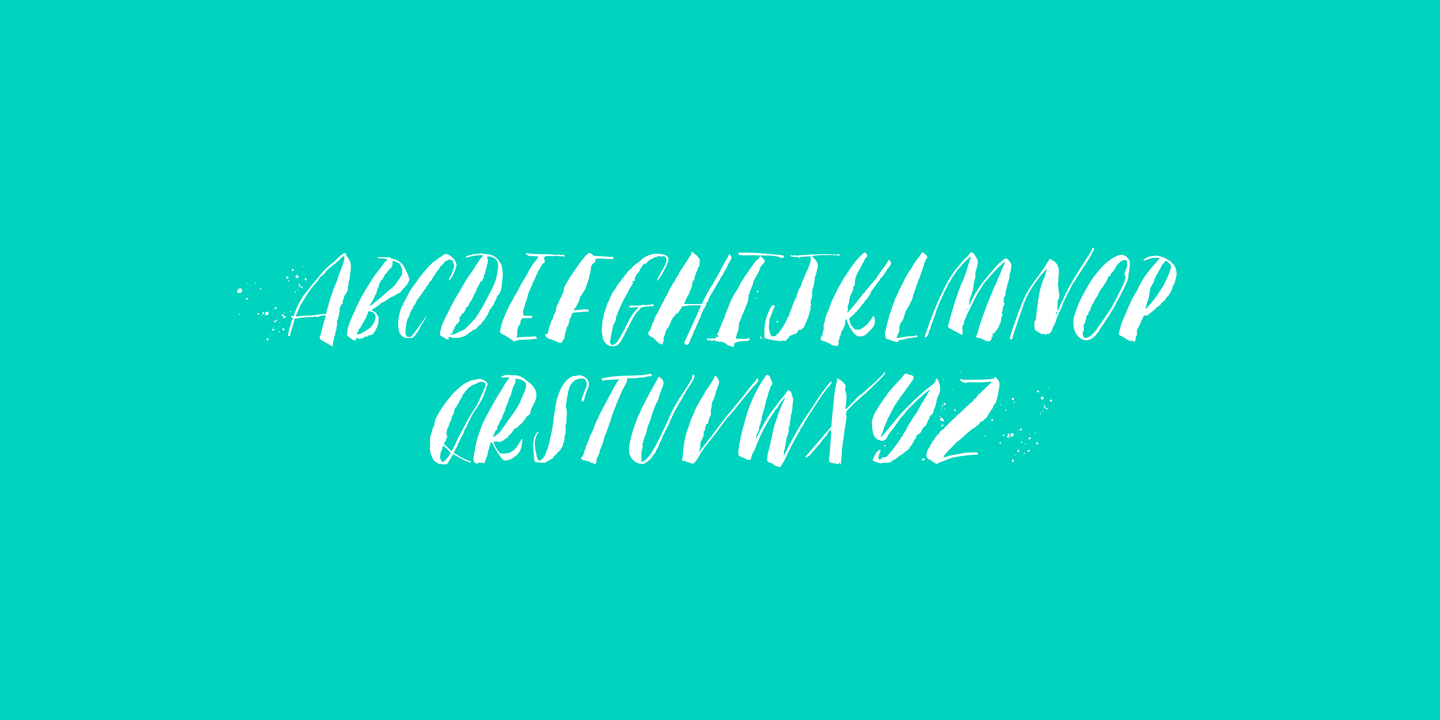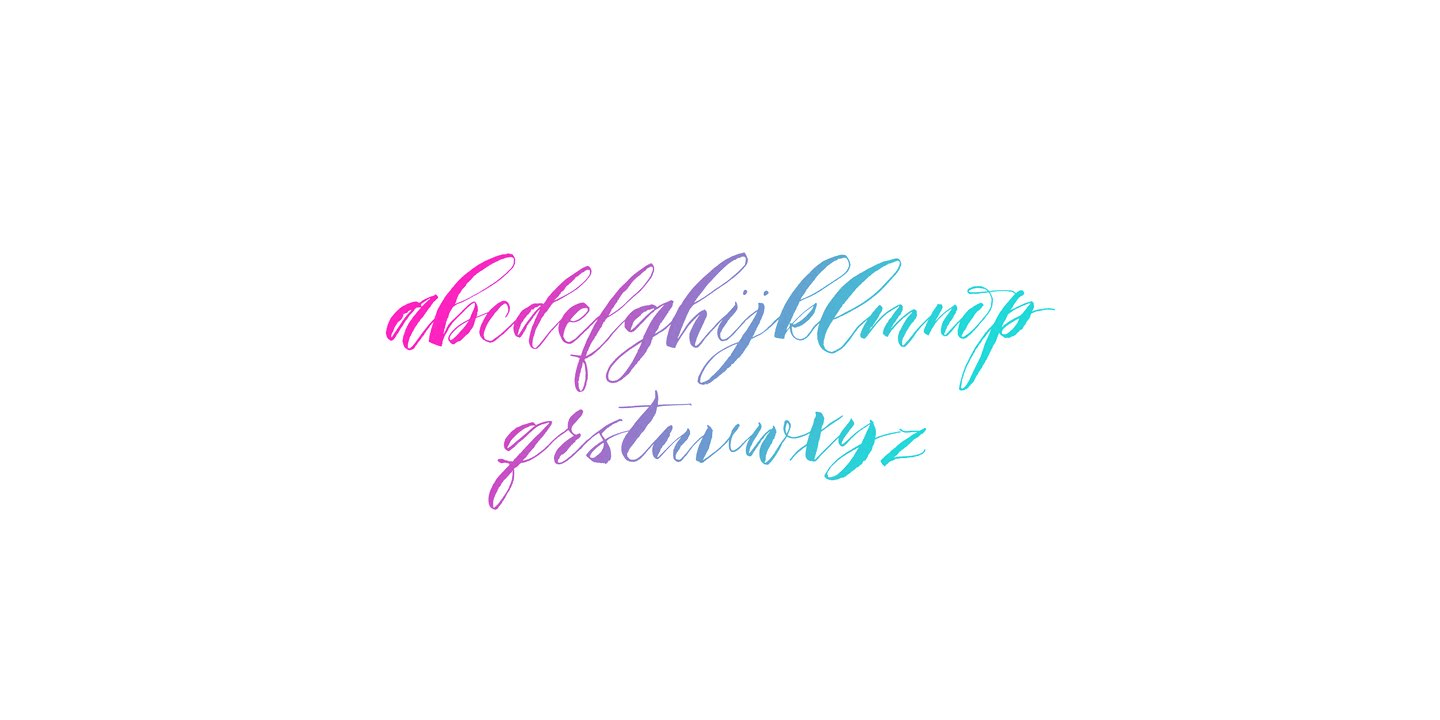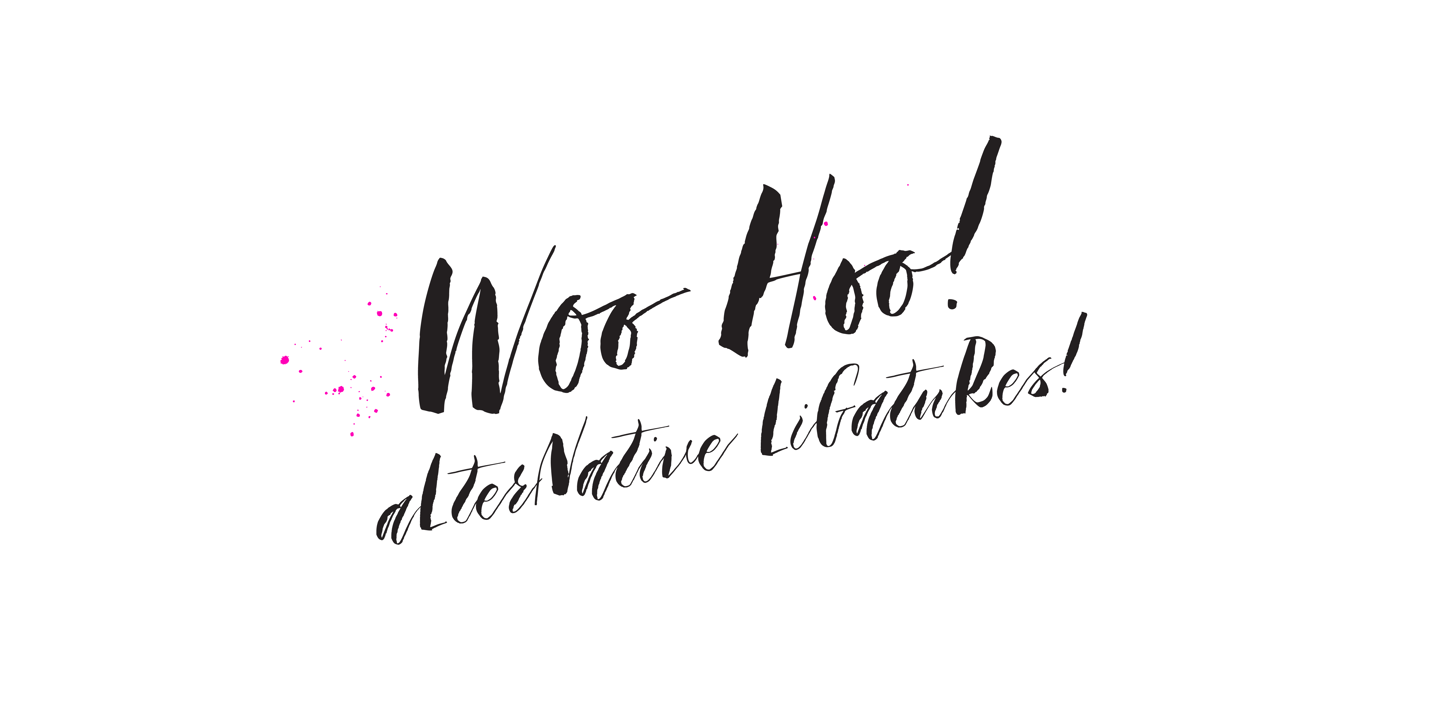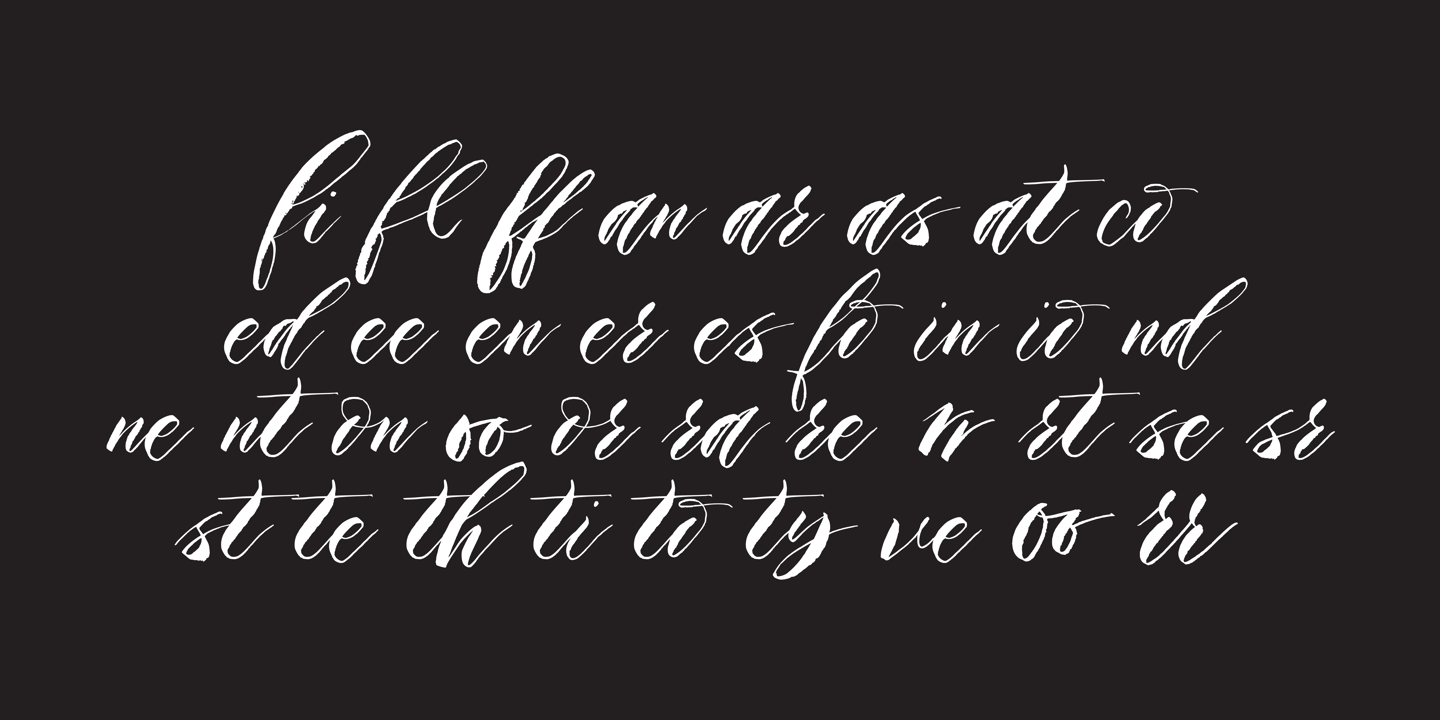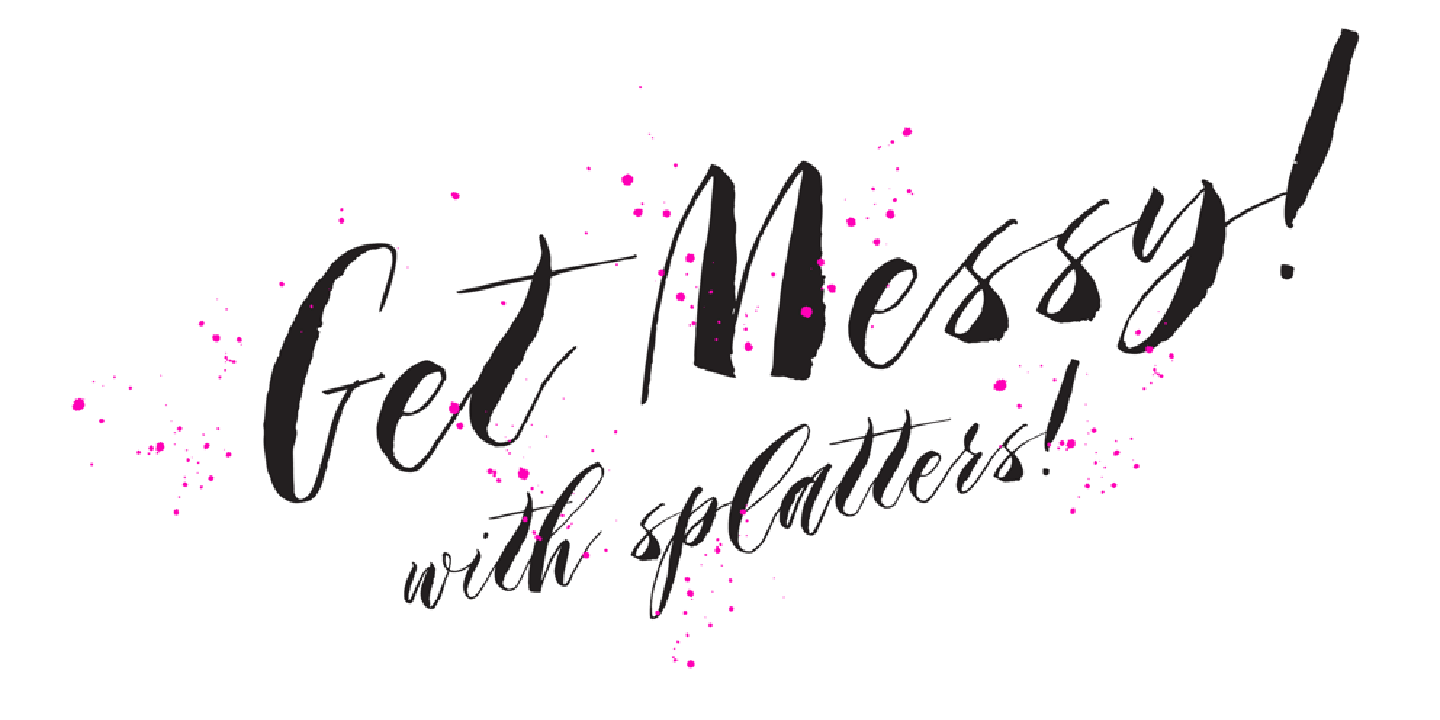
About Backlash
A hand painted script style font that adds instant cool factor to any project. This font strives to bring a real hand-illustrated touch to designs as the variation in line weights, textures, and letter forms creates a one of a kind final piece. These…